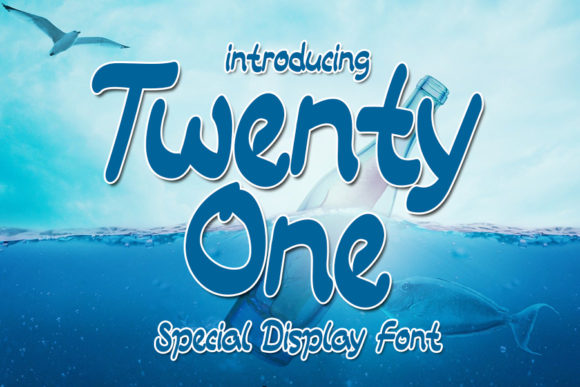
About Twenty One Font
Twenty one is a stunning script font that combines beauty and attractiveness with a touch of quirkiness. With its clean lines and unique character shapes, this font is an excellent choice for various design projects, including logos, branding, social media graphics, and crafty DIY endeavors.
The clean and well-defined letterforms of Twenty one give it a polished and professional look. Its stylish and elegant strokes add a sense of sophistication to any design. Whether you’re creating a logo for a business or crafting social media posts, this font will make your designs stand out.
The slight quirkiness of Twenty one sets it apart from more traditional script fonts. It brings a playful and whimsical element to your designs, making them eye-catching and memorable. Whether you’re creating invitations, greeting cards, or handmade crafts, this font adds a touch of personality and charm.
One of the strengths of Twenty one is its versatility. It can adapt to various design styles and themes, making it suitable for a wide range of projects. Whether you’re going for a modern and trendy look or a vintage and retro aesthetic, this font can effortlessly enhance your design concept.
The attractive and appealing nature of Twenty one makes it an ideal choice for creating visual content for social media platforms. From Instagram posts to Pinterest graphics, this font will captivate your audience and leave a lasting impression. Its clean yet quirky style adds a unique flair to your social media presence.
Additionally, Twenty one works well for crafty DIY projects. Whether you’re designing handmade cards, personalized gifts, or creative home decor, this font adds a touch of artistry and creativity to your crafts.
Embrace the beauty and attractiveness of Twenty one, and let its clean and slightly quirky nature bring a fresh and engaging look to your designs. Experiment with its versatility, and watch as your logos, branding, social media, and crafty DIY projects come to life with a touch of elegance and creativity.